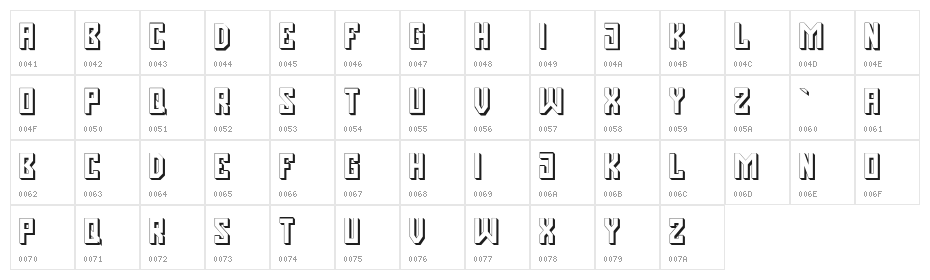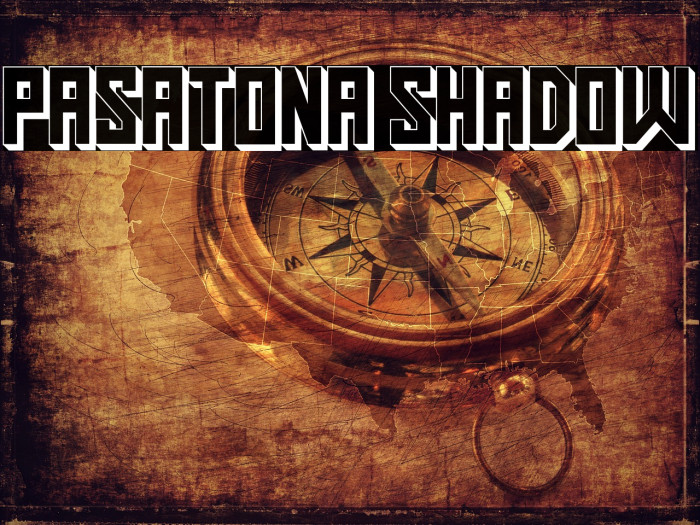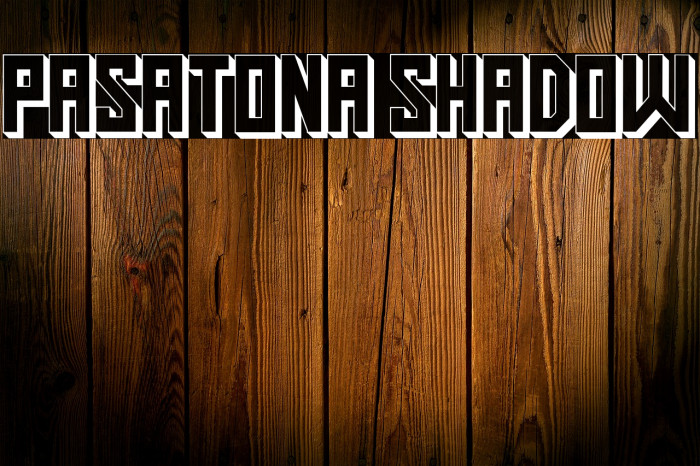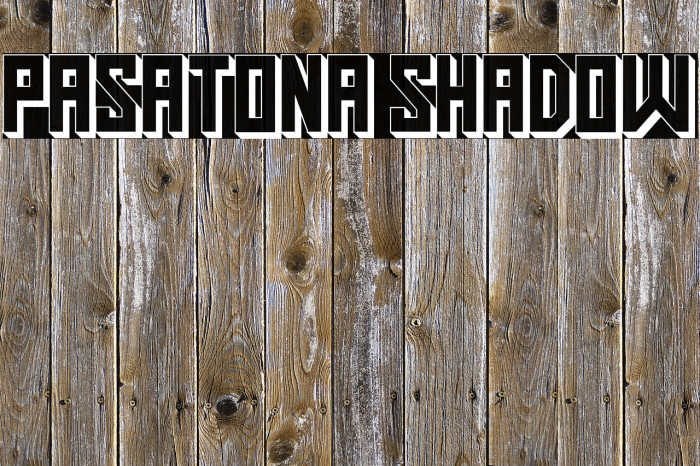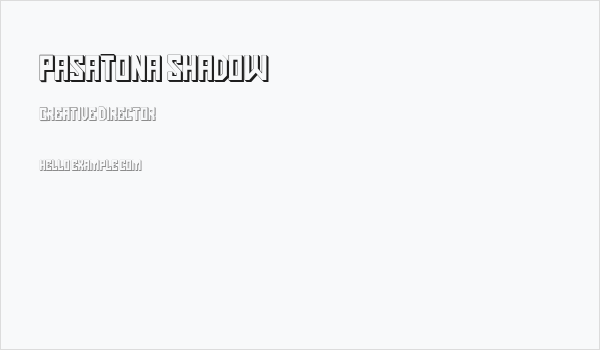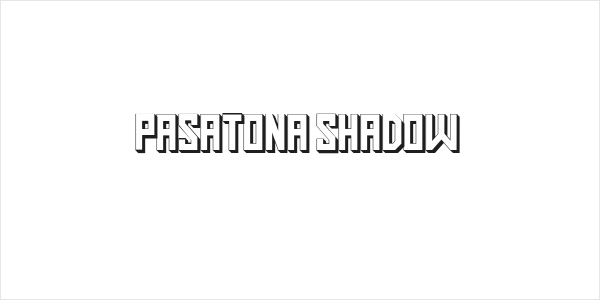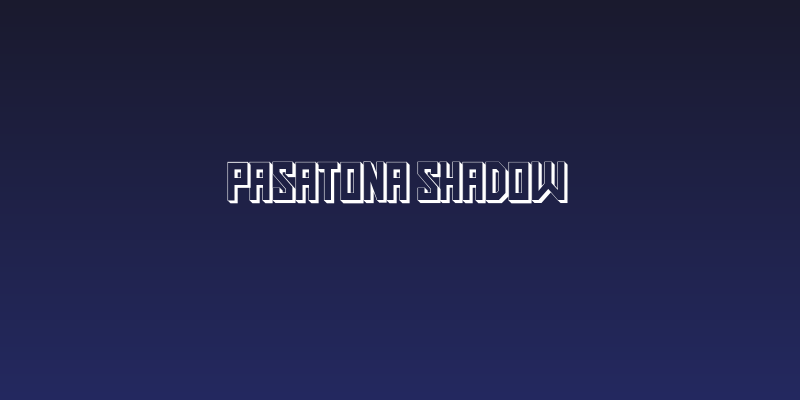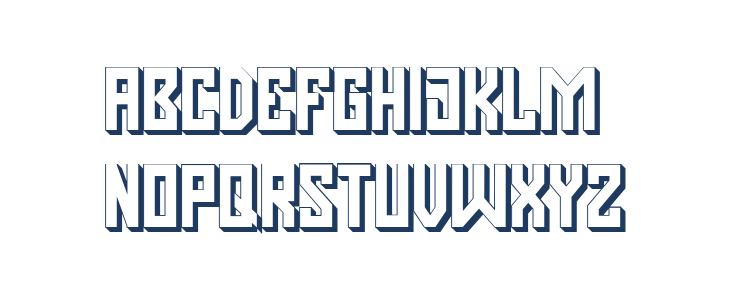
Pasatona Shadow Font
Pasatona Shadow Description
This font features a bold, geometric design with a distinct shadow effect that gives it a three-dimensional appearance. The characters are constructed with sharp, angular lines and a consistent thickness throughout, creating a strong and impactful visual presence. The shadow adds depth and a sense of movement, making it ideal for attention-grabbing headlines or titles. The uppercase letters are uniform in height and width, contributing to a cohesive and structured look. The style is reminiscent of retro or vintage designs, yet it maintains a modern edge due to its clean lines and precise execution. This font is particularly suited for projects that require a bold statement or a dynamic visual element.
| Overall Style | Modern, Retro |
| Proposed Projects | Perfect for posters, logos, branding, and any design needing a bold, dynamic look. |